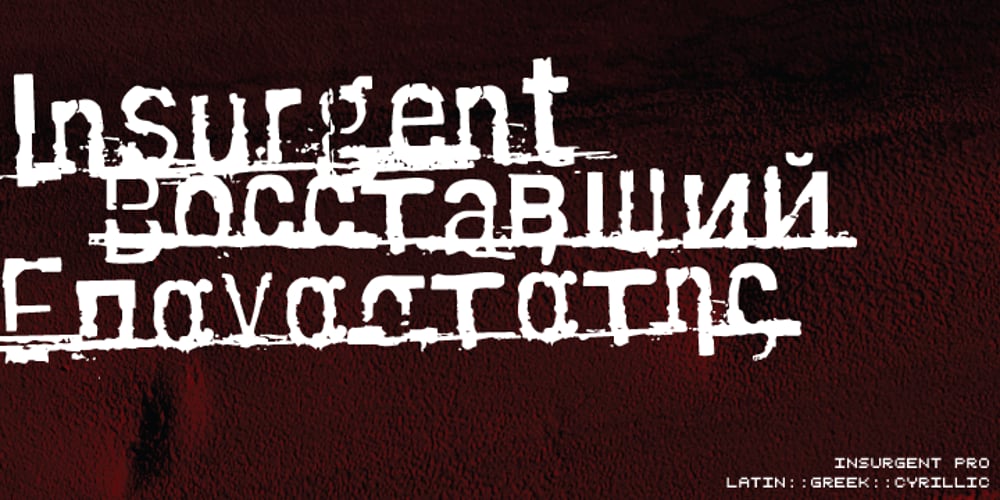
Insurgent Pro Font Family was designed by Michael Wallner and published by The Type Fetish. Insurgent Pro contains 1 styles and family package options. Destroy, destroy. Insurgent was expanded to include extended Latin, extended Cyrillic and Greek alphabets so it will work with most languages in Europe and the Americas.